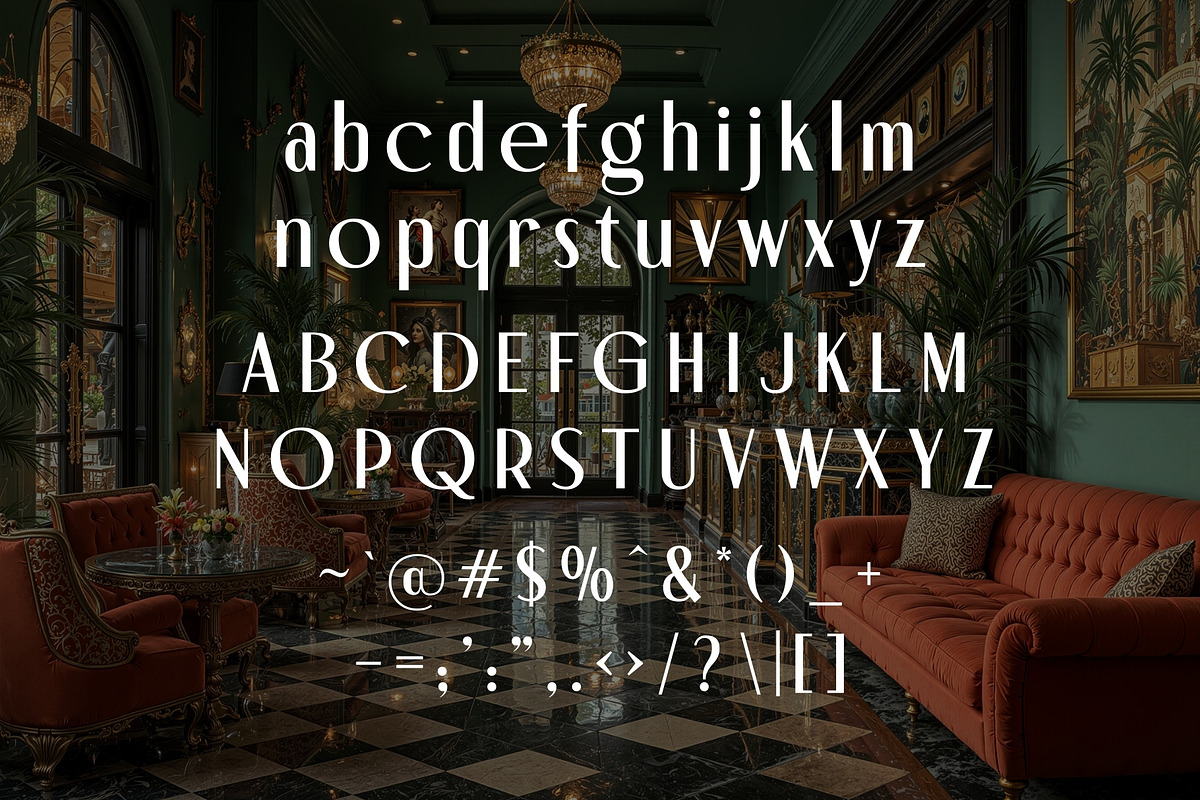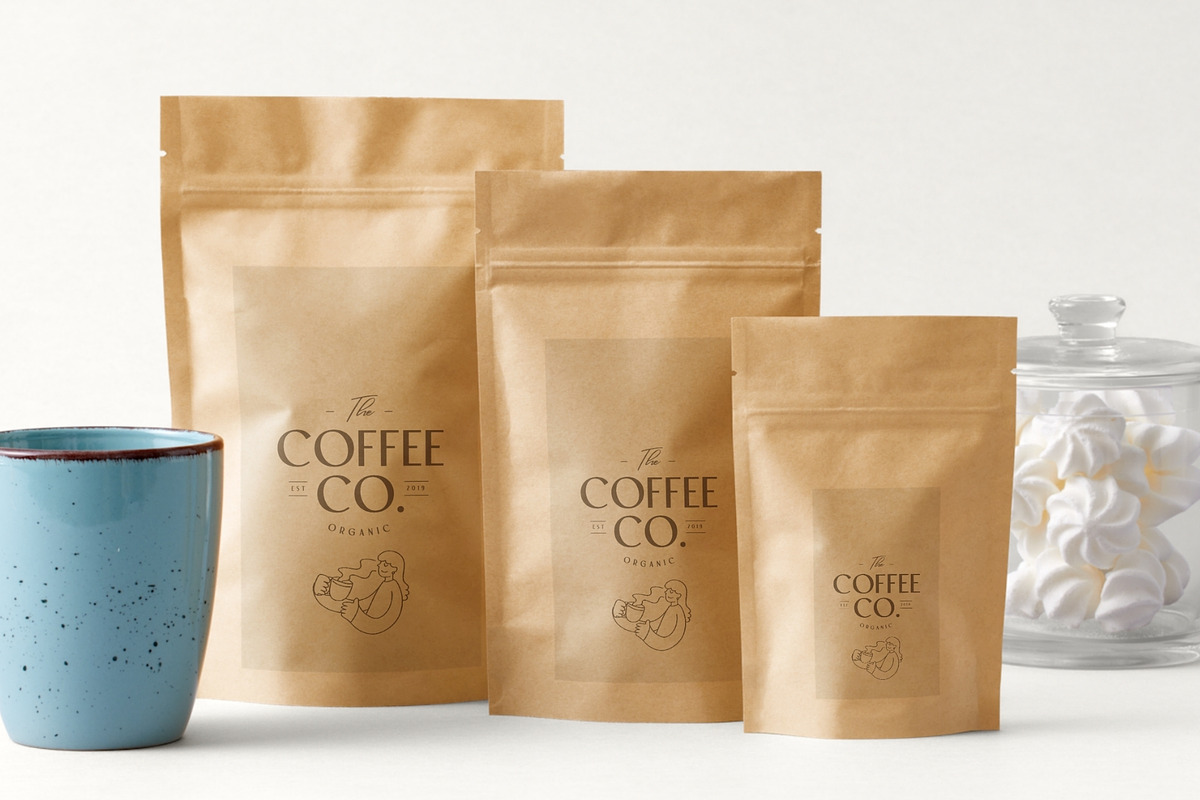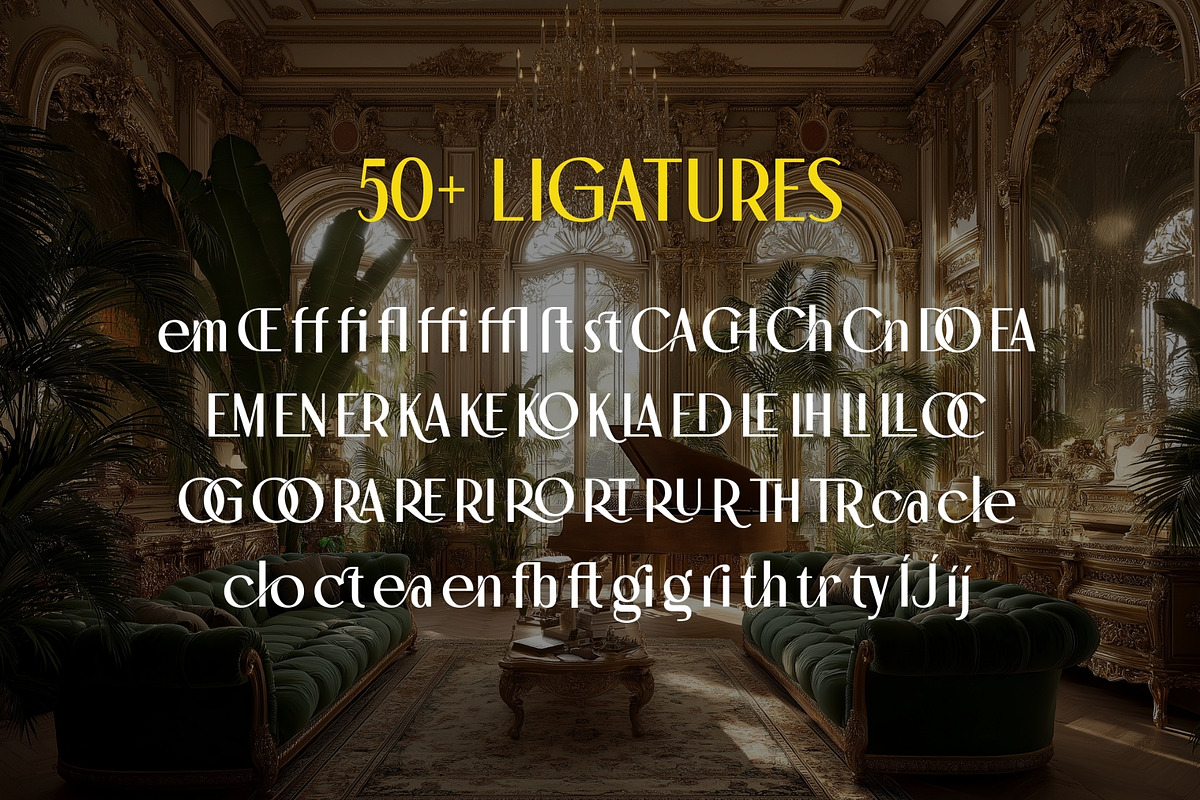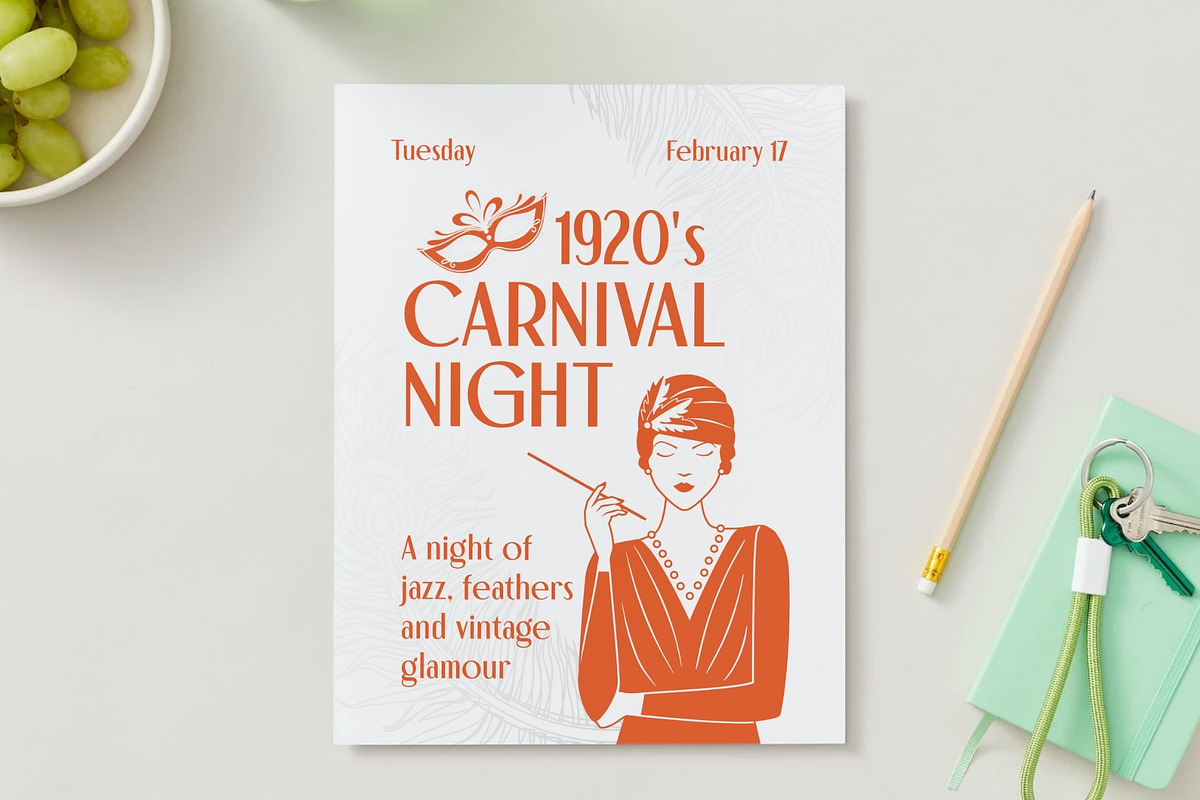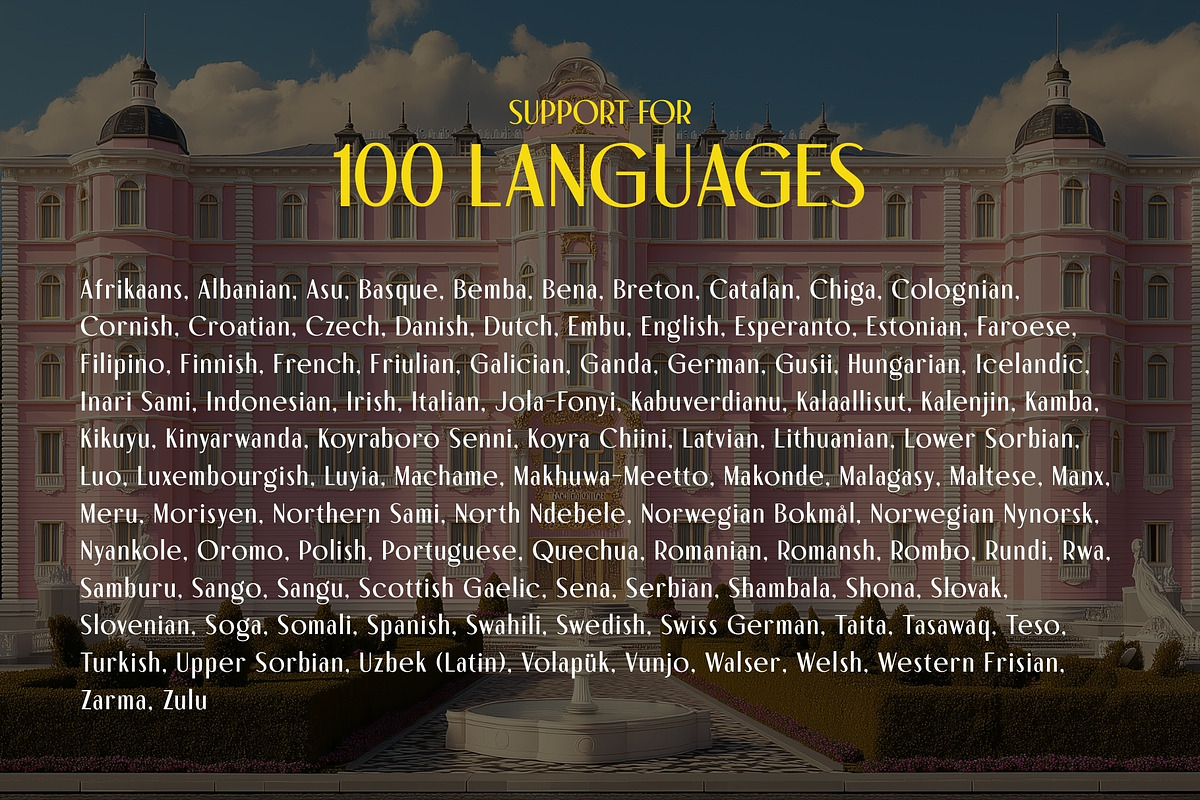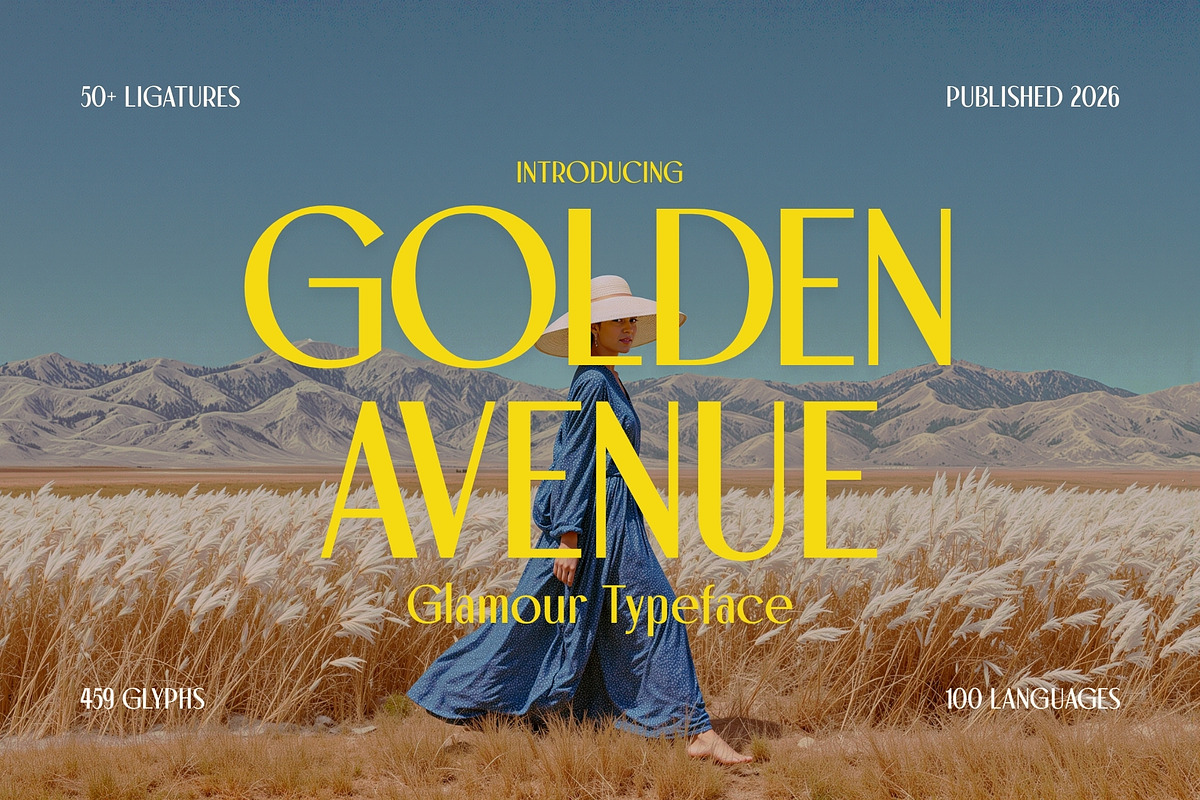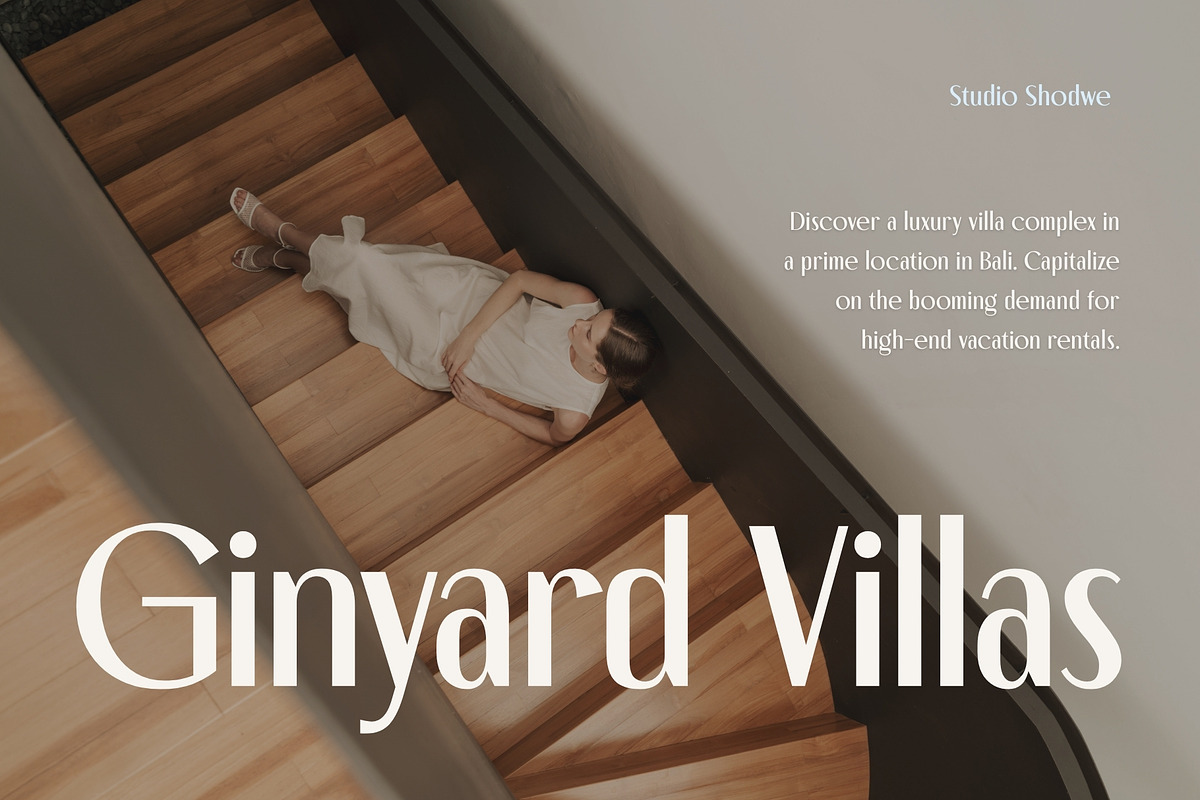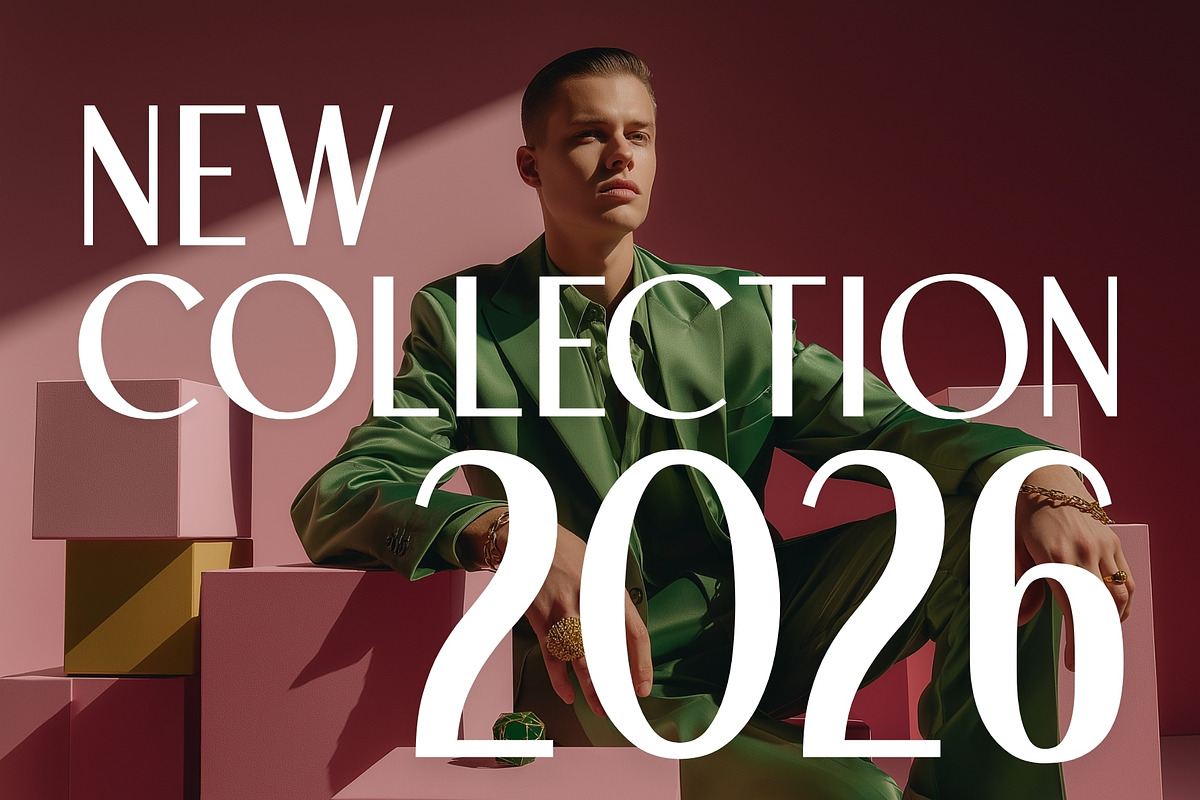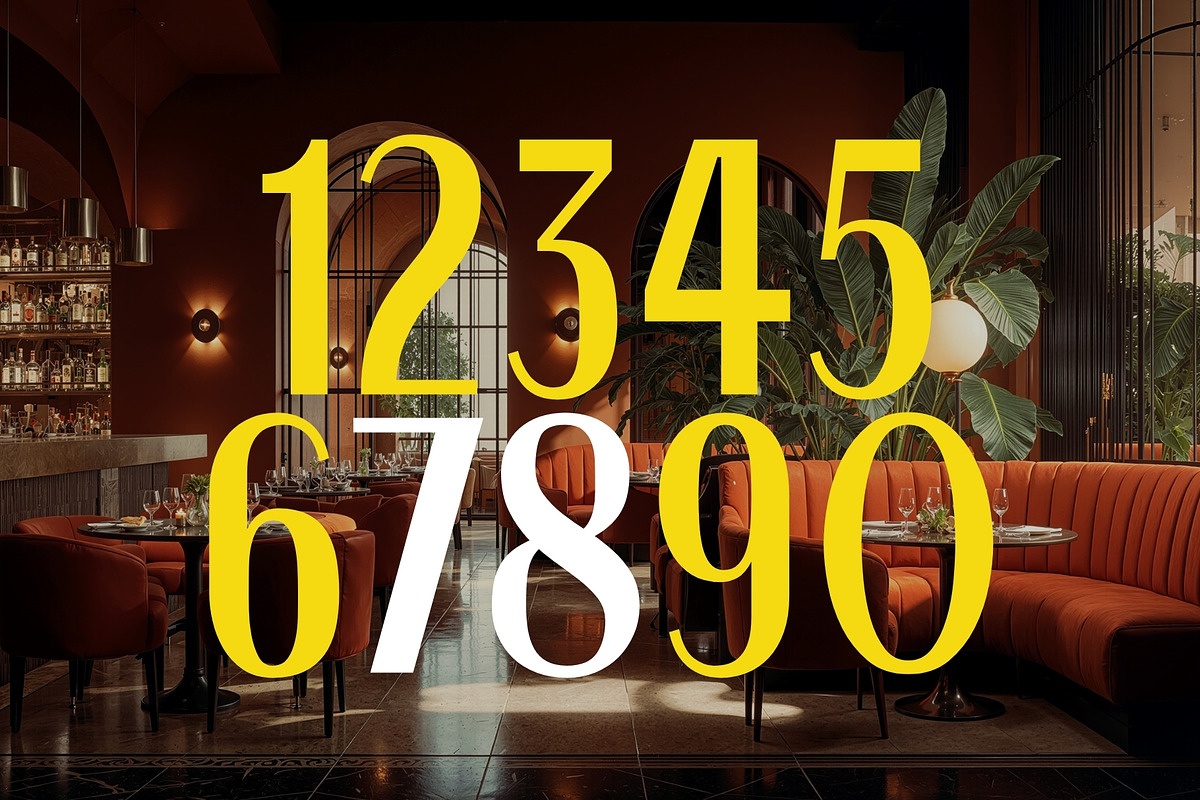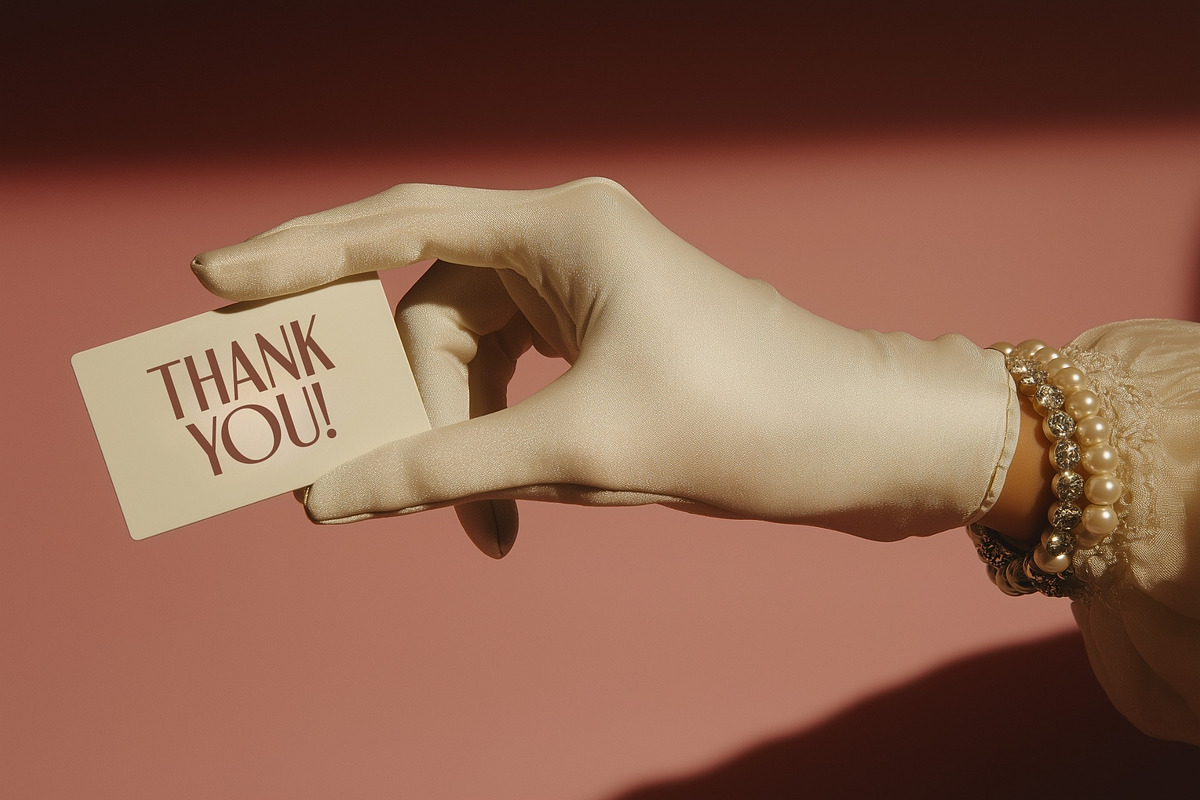
Golden Avenue - Glamour Typeface
Step into the golden age of design with Golden Avenue, a sophisticated luxury typeface inspired by the timeless elegance of Art Deco architecture and classic French style. With its tall proportions, graceful curves, and refined geometric structure, Golden Avenue captures the glamour of vintage Parisian posters, classic cinema titles, and high-end branding.
This vintage-inspired sans serif blends retro charm with modern precision, making it perfect for designers who want typography that feels both nostalgic and polished. Its slender letterforms and stylish rhythm create a distinctive visual identity that instantly evokes luxury, class, and sophistication.
Golden Avenue also features an extensive set of 50+ beautifully crafted ligatures, allowing letters to flow together naturally and giving your typography a unique, custom-designed look. These elegant combinations add personality and refinement to logos, headlines, and editorial layouts.
With 459 glyphs and support for 100 languages, Golden Avenue is built for global creativity. Whether you're designing for luxury brands, vintage posters, or stylish packaging, this font delivers versatility without sacrificing its iconic retro personality.
Golden Avenue is more than just a typeface — it's a statement of timeless style and golden-era elegance.
✨ Font Features
- 459 Glyphs
- 50+ Stylish Ligatures
- Supports 100 Languages
- Classic tall Art Deco letterforms
- Elegant vintage-inspired sans serif design
🎨 Perfect For
- Luxury branding
- Vintage posters
- Movie titles & film graphics
- Editorial & magazine layouts
- Quote graphics
- Packaging design
- Fashion branding
- Elegant logos
Golden Avenue brings the romance of vintage Paris, the glamour of Art Deco, and the confidence of luxury typography into one beautifully crafted font.
If you’re looking for a typeface that feels classic, refined, and unforgettable, Golden Avenue is ready to shine.